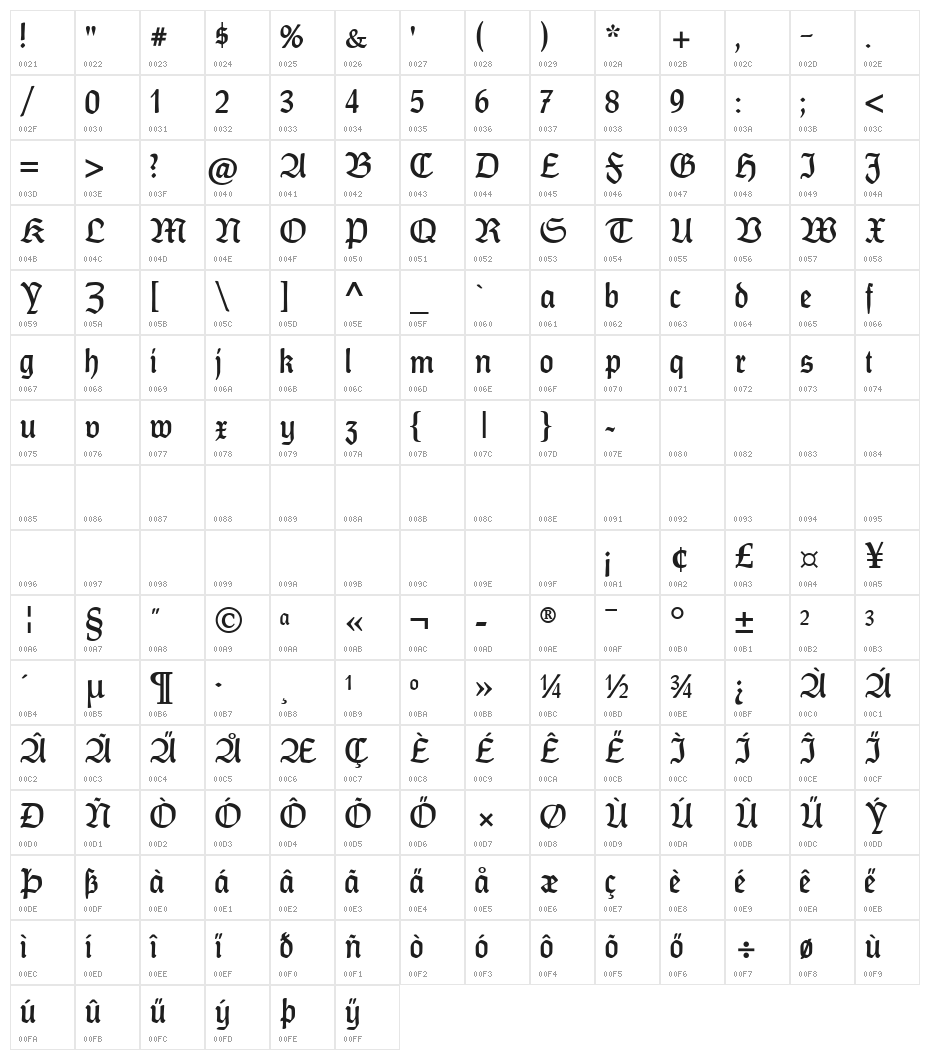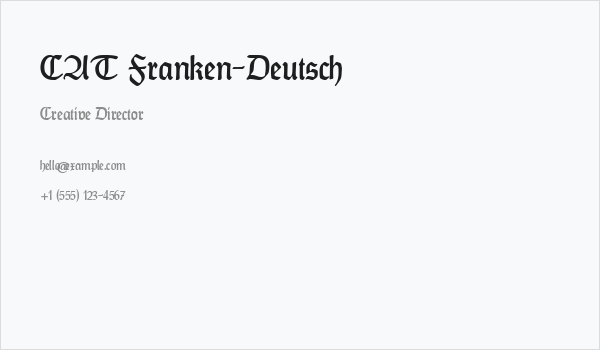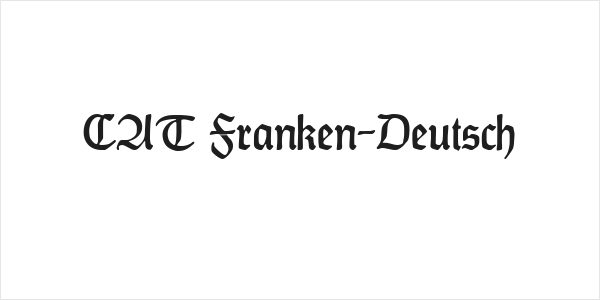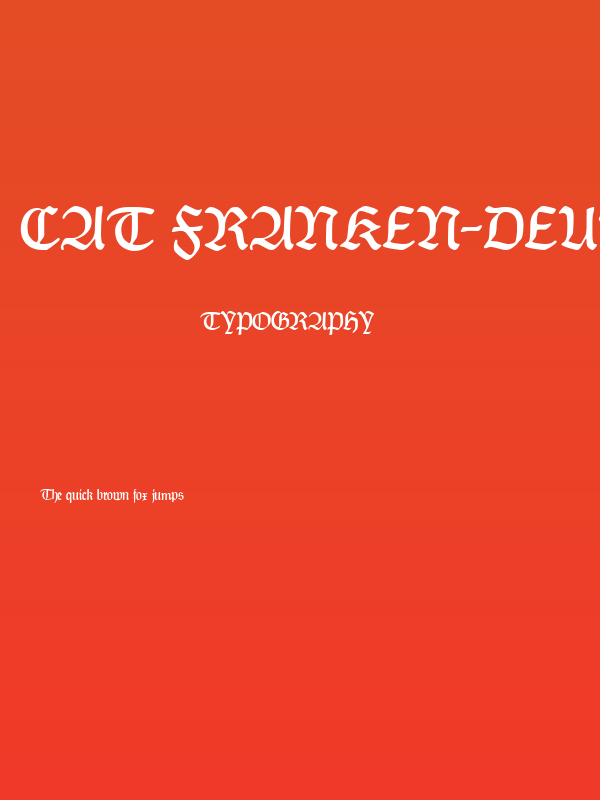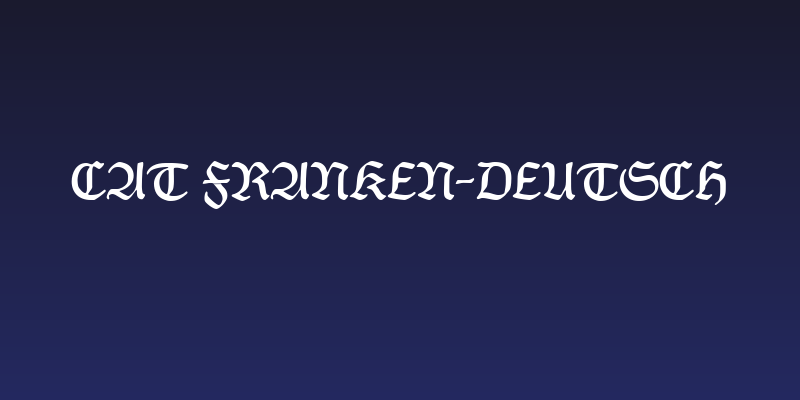
CAT Franken-Deutsch Font
CAT Franken-Deutsch Description
This font exhibits a classic blackletter style, characterized by its intricate and angular letterforms. The uppercase letters are bold and ornate, with sharp edges and a traditional Gothic appearance. The lowercase letters maintain the same decorative quality, featuring unique curves and flourishes that enhance the medieval aesthetic. The numerals are consistent with the overall style, providing a cohesive look across all characters. Special characters are equally stylized, fitting seamlessly into the font's historical theme. This font is perfect for projects that require a touch of antiquity and elegance.